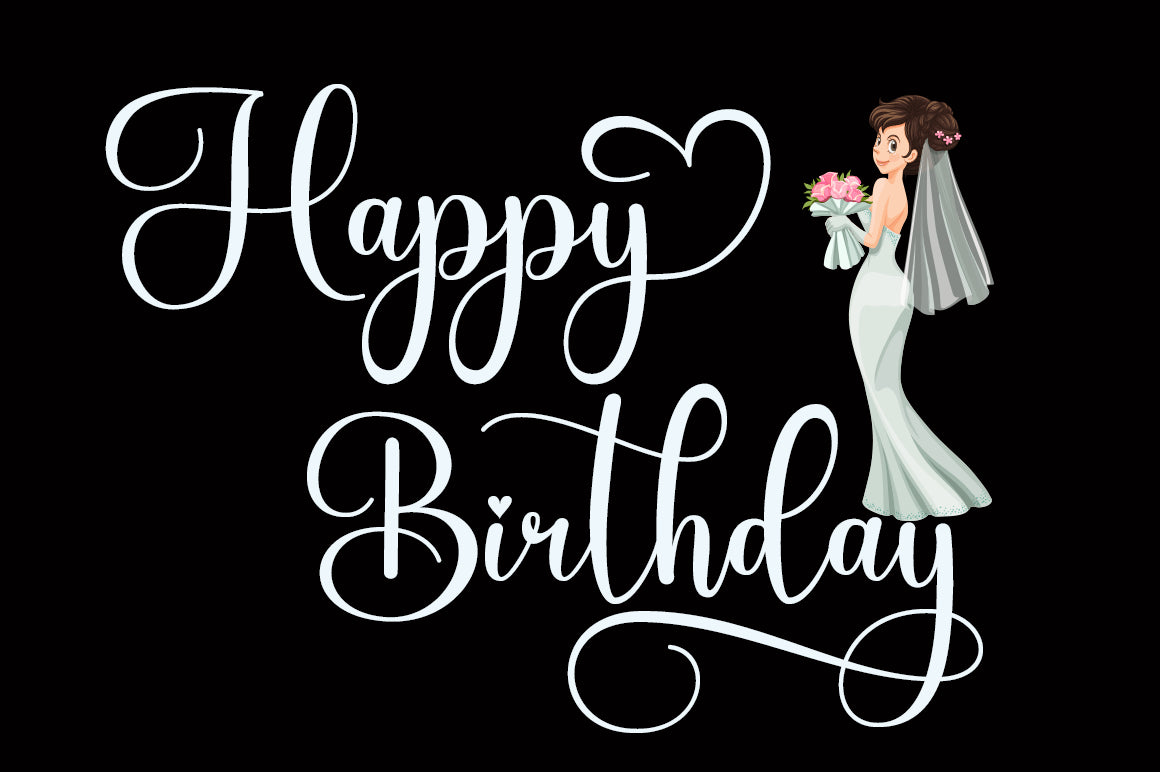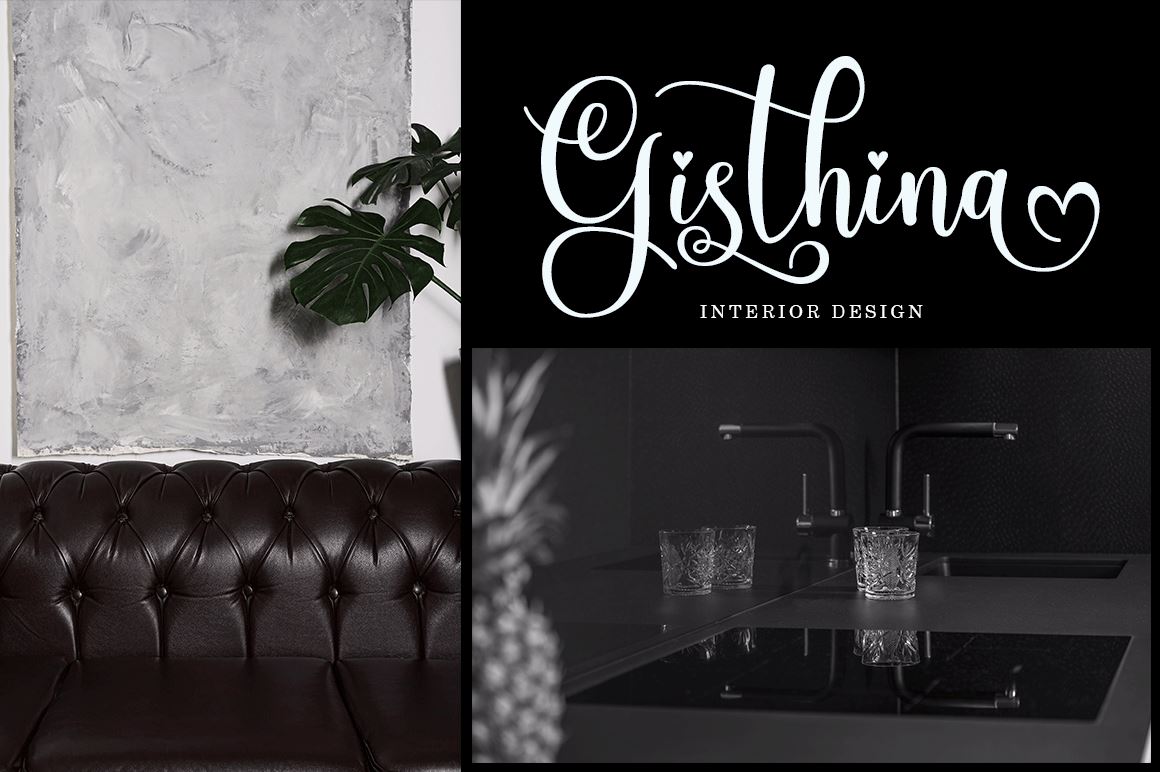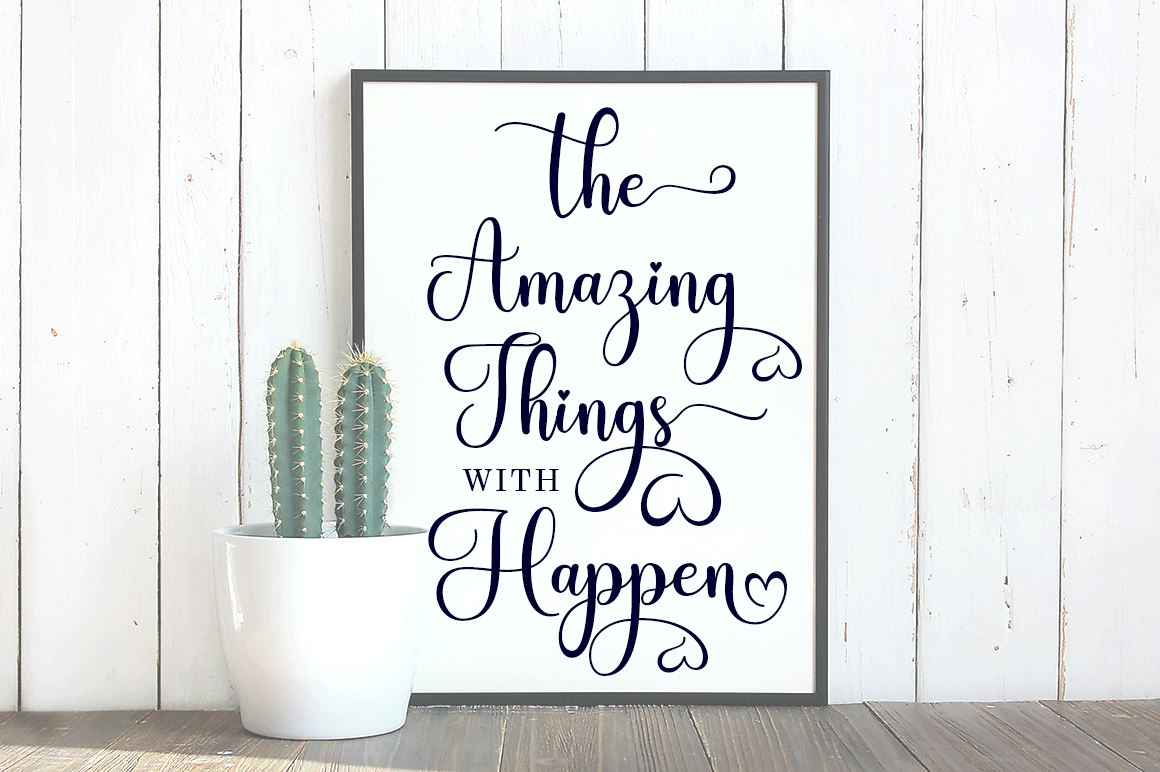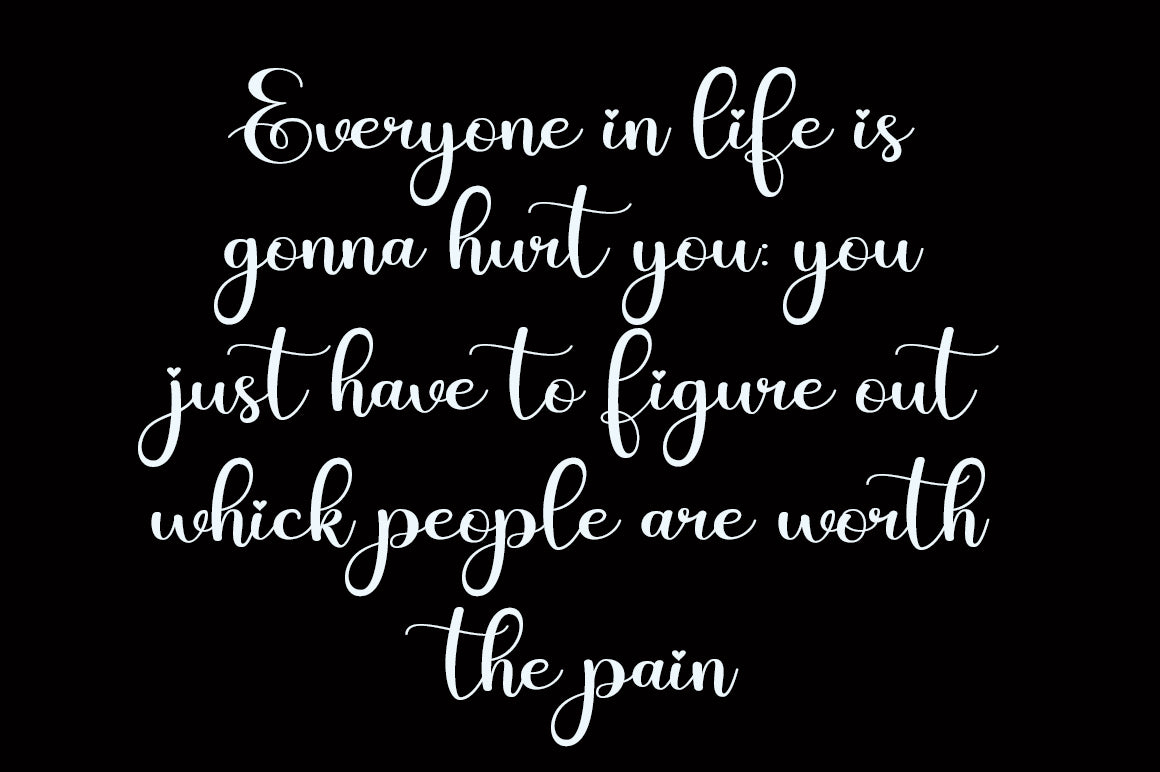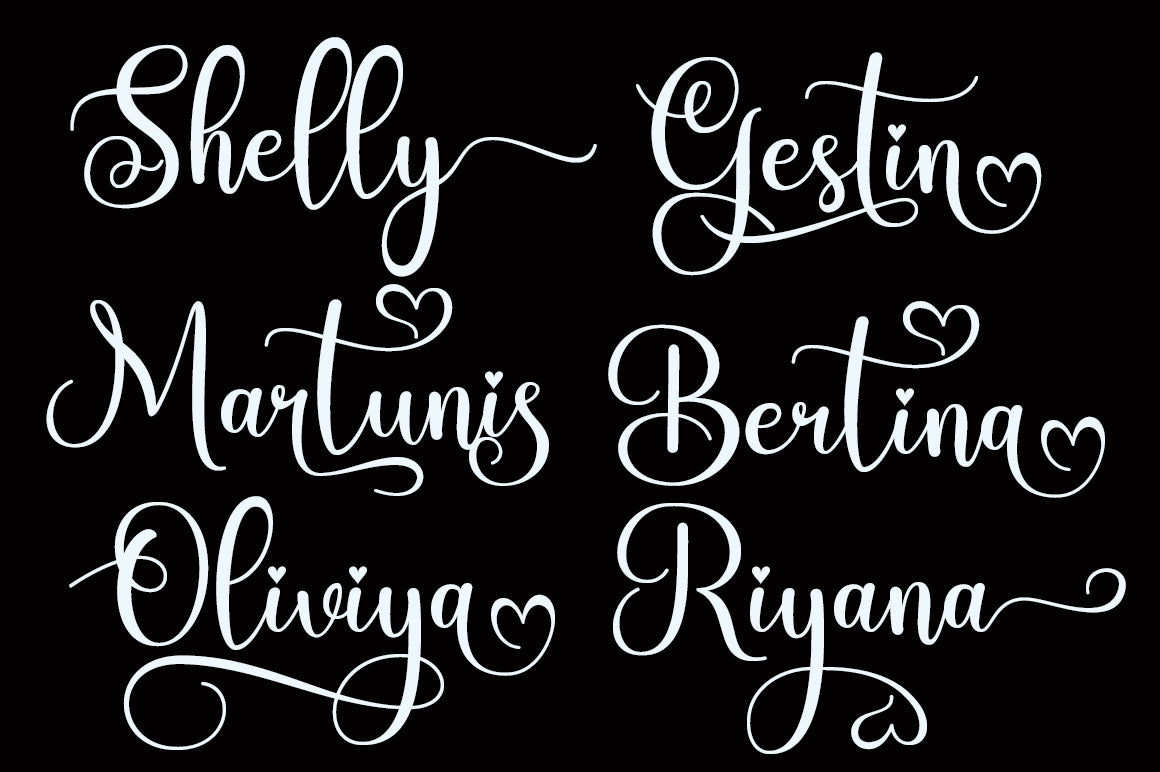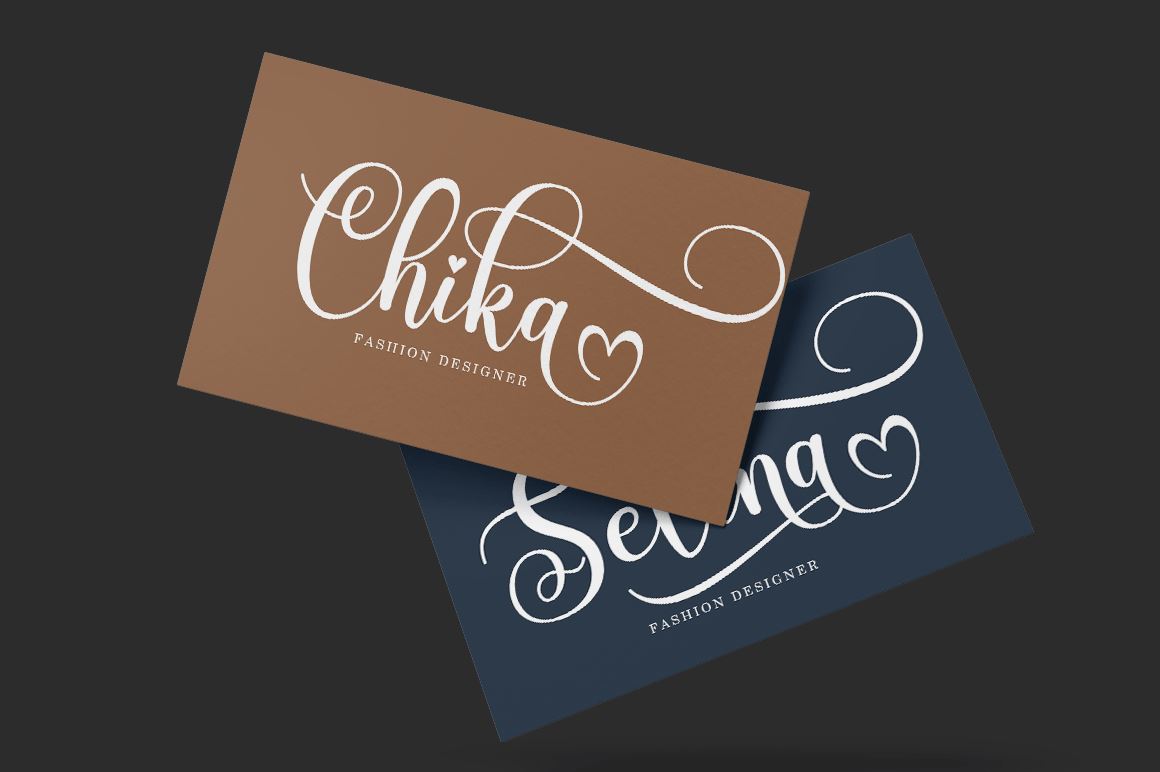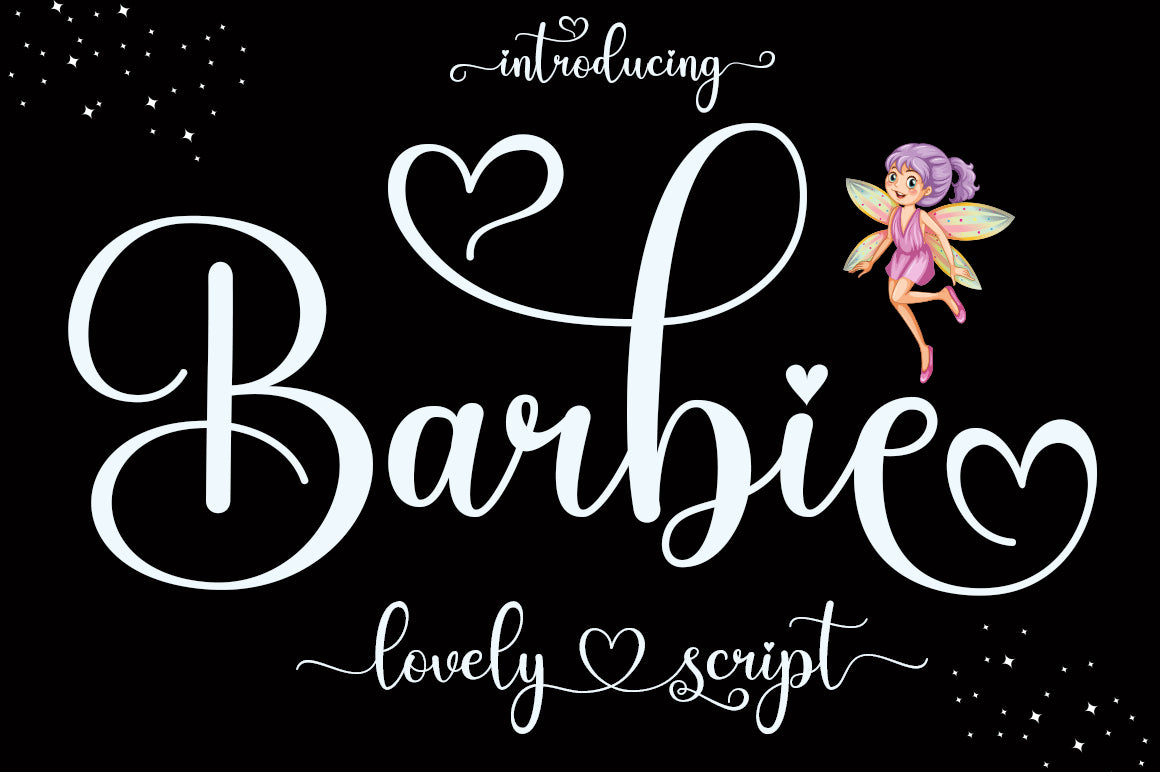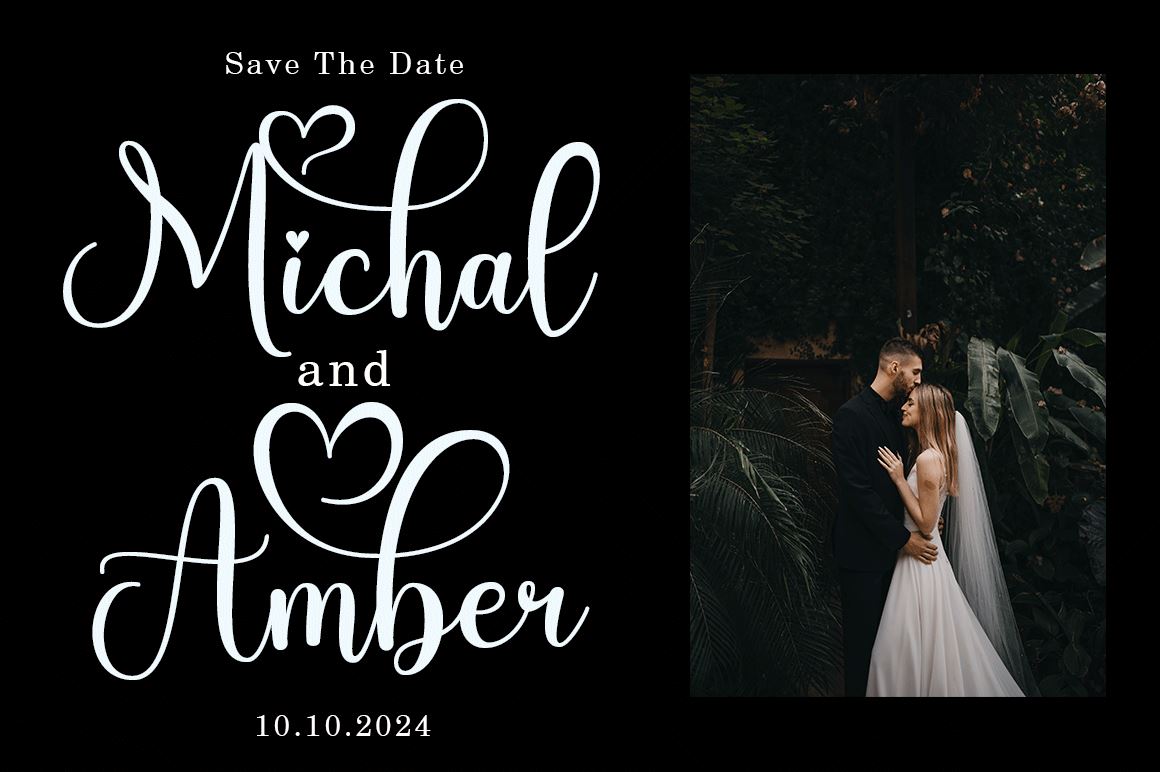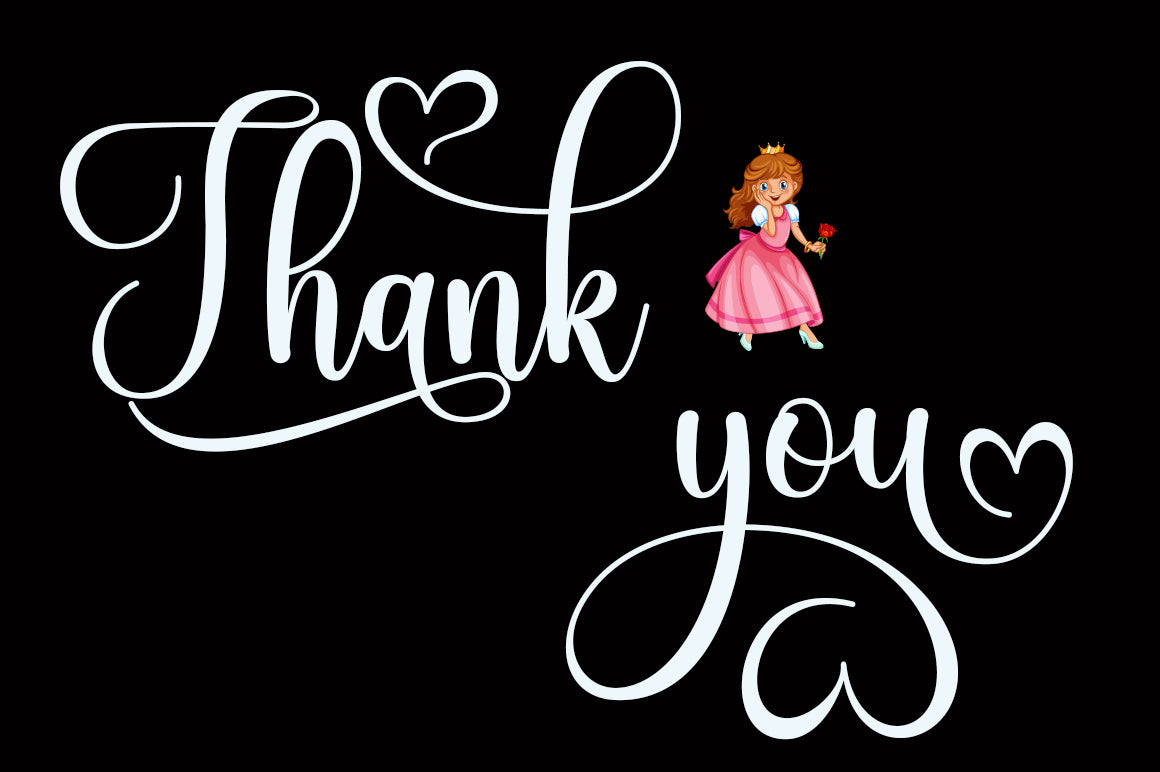
Barbie Script
About Barbie Script
Barbie Script is a modern calligraphic design, including Regular. This typeface is casual and pretty with a sweep. It can be used for various purposes. such as logos, product packaging, wedding invitations, branding, headlines, signage, labels, signatures, book covers, posters, quotes, and many more. Ð’ Barbie Script includes changes in OpenType styling, binders, and international support for most Western languages. To enable the OpenType Stylistic alternative, you need a program that supports OpenType features such as Adobe Illustrator CS, Adobe Indesign & CorelDraw X6-X7, Microsoft Word 2010 or a later version. How to access all the alternate characters using Adobe Illustrator: Ð’ https://www.youtube.com/watch?v=XzwjMkbB-wQ Ð’ Barbie Script is encoded with Unicode PUA, which allows full access to all additional characters without special design software. Mac users can use Letterbook, and Windows users can use the Character Map to view and copy one of the extra characters to attach to your favorite text editor/application. How to access all alternate characters, using Windows Character Map with Photoshop: Ð’ https://www.youtube.com/watch?v=Go9vacoYmBw Ð’ If you need help or have questions, let me know. I’m happy to help 🙂 Thanks & Happy Designing!